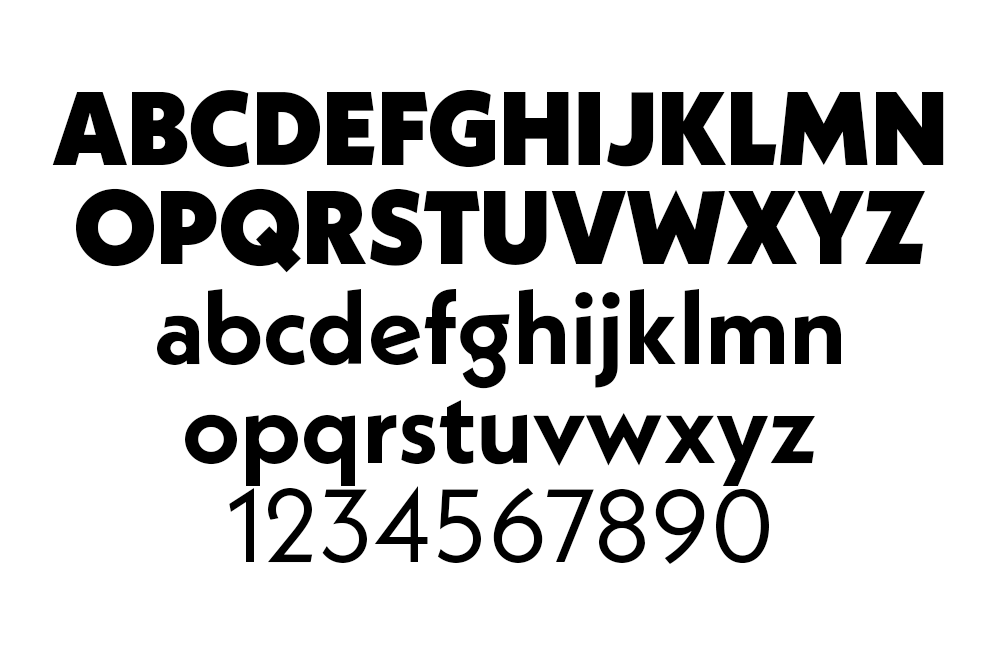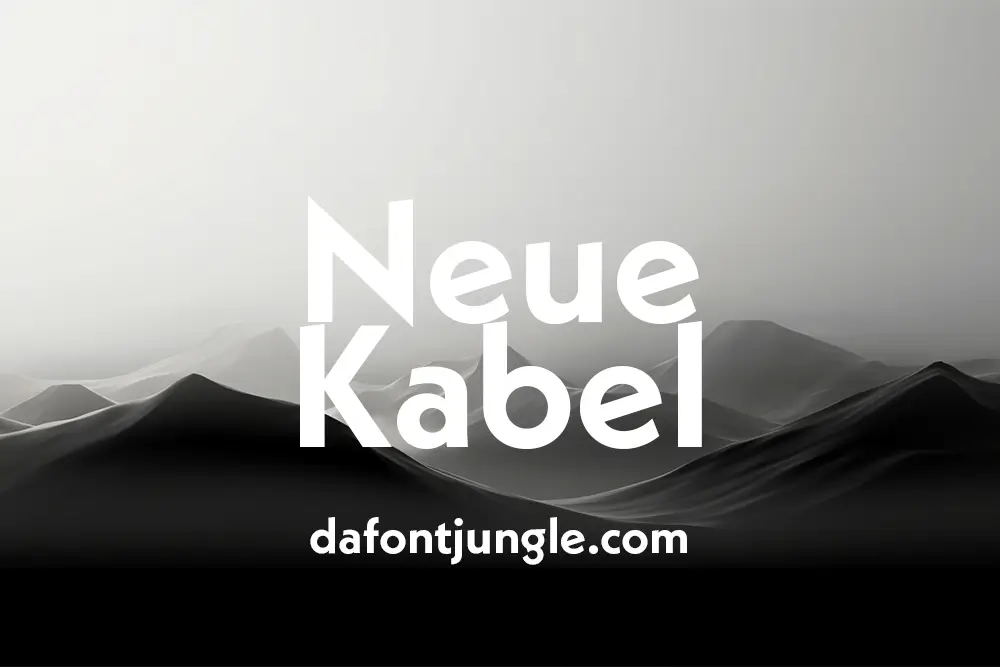
Neue Kabel – A Classic Typeface Made for Today
Neue Kabel is a modern update of the original Kabel typeface. Marc Schütz redesigned it to work well in both print and digital formats. He kept the charm of the original design by Rudolf Koch while adding cleaner shapes and better consistency.
This font feels both elegant and playful. It’s easy to read and works great for many uses, like websites, ads, and print layouts. Neue Kabel gives your designs a unique personality without losing clarity.